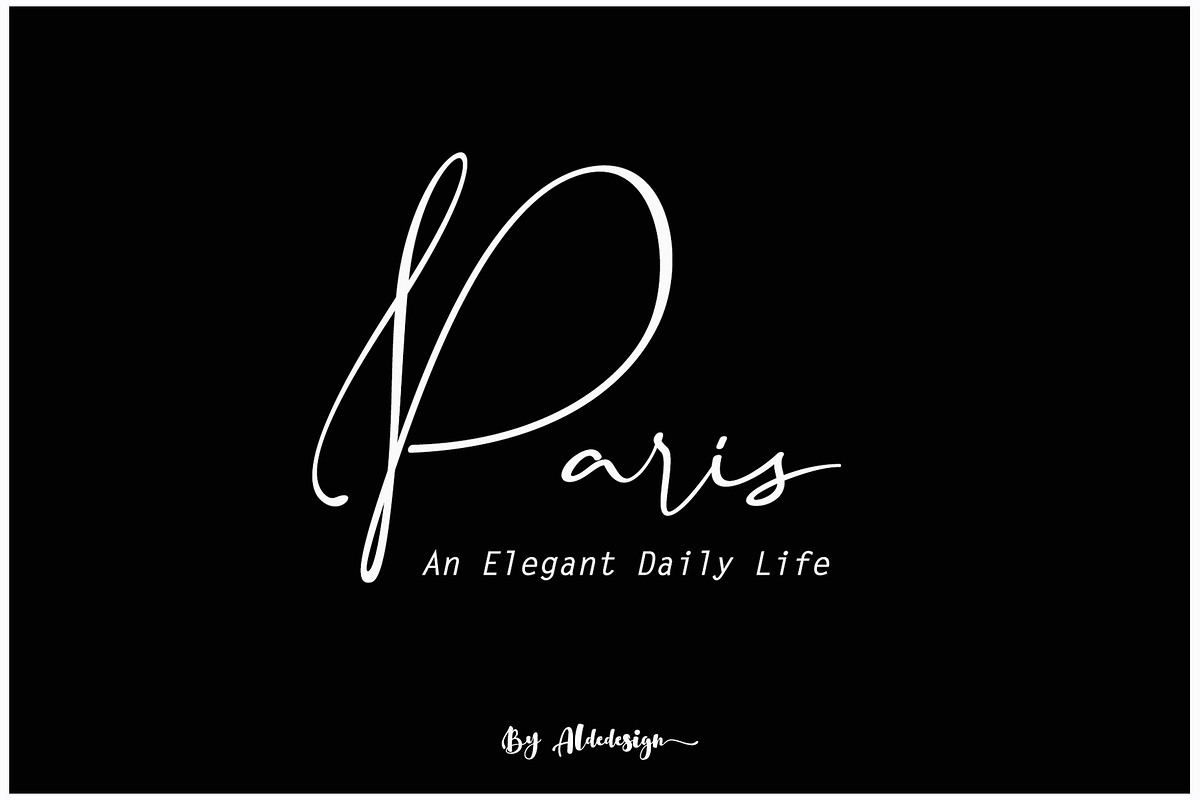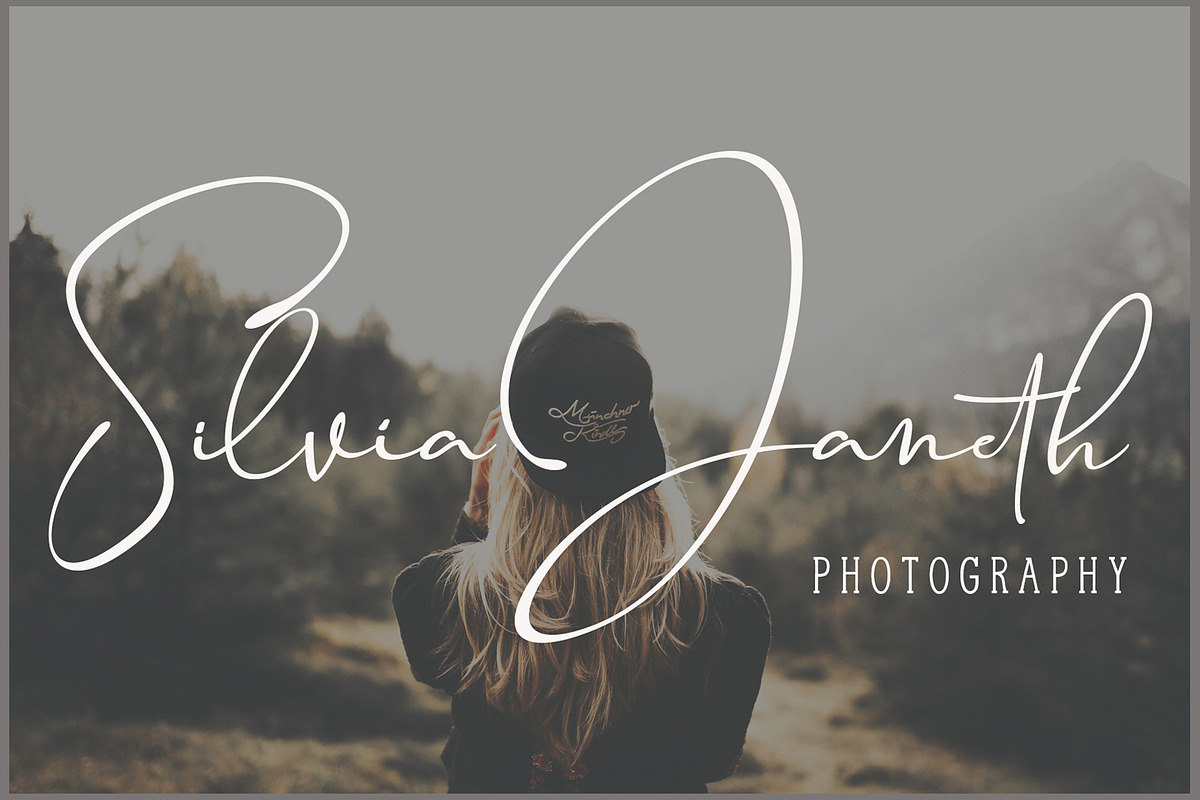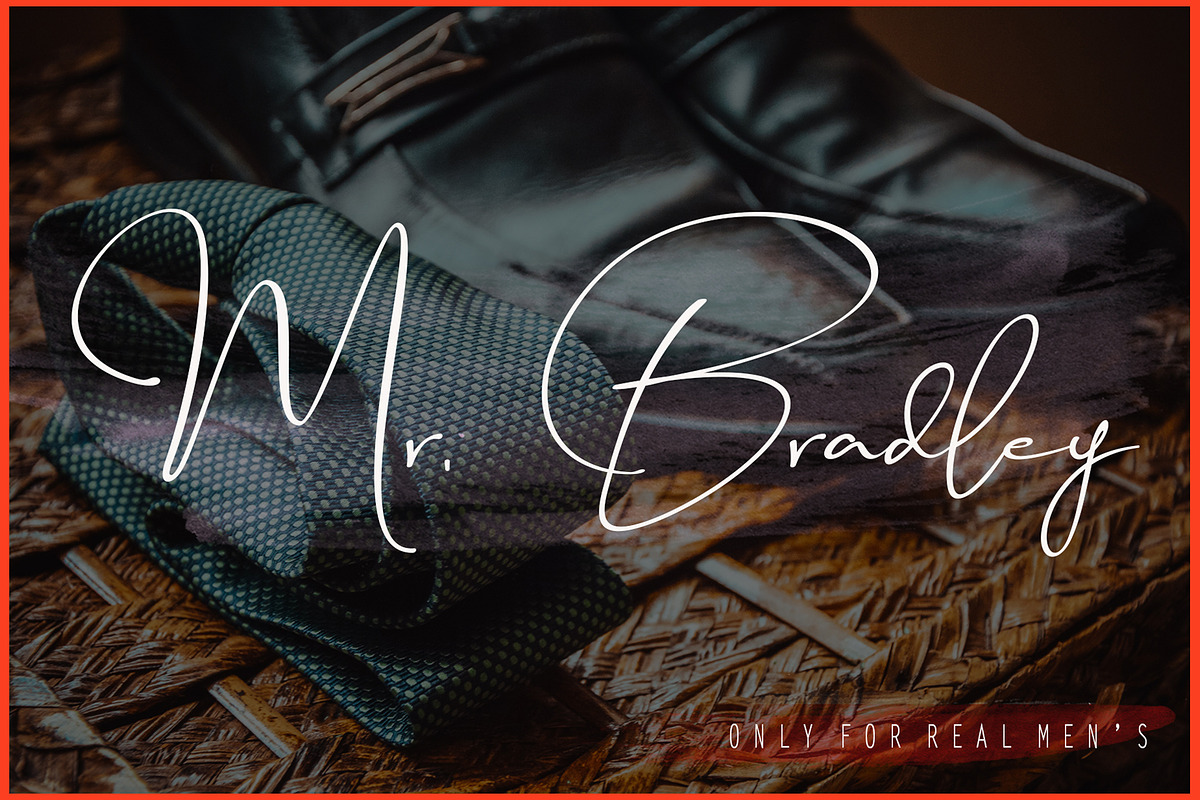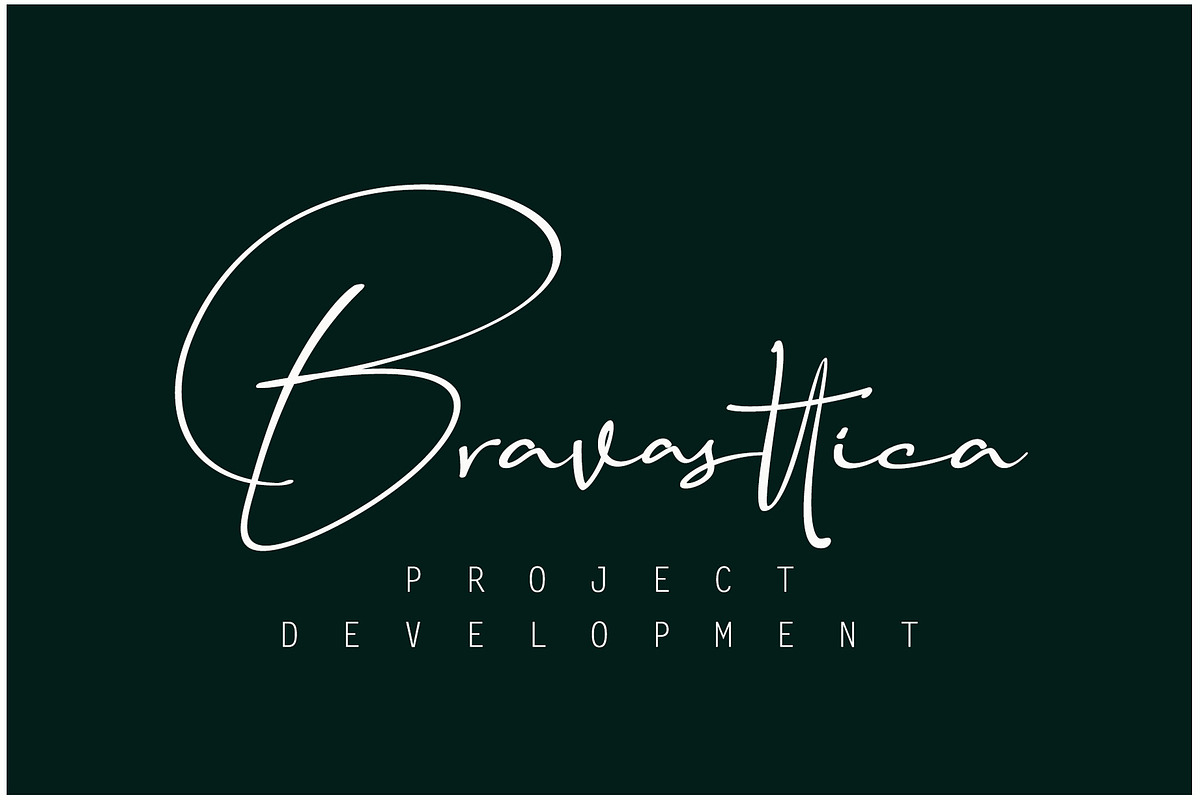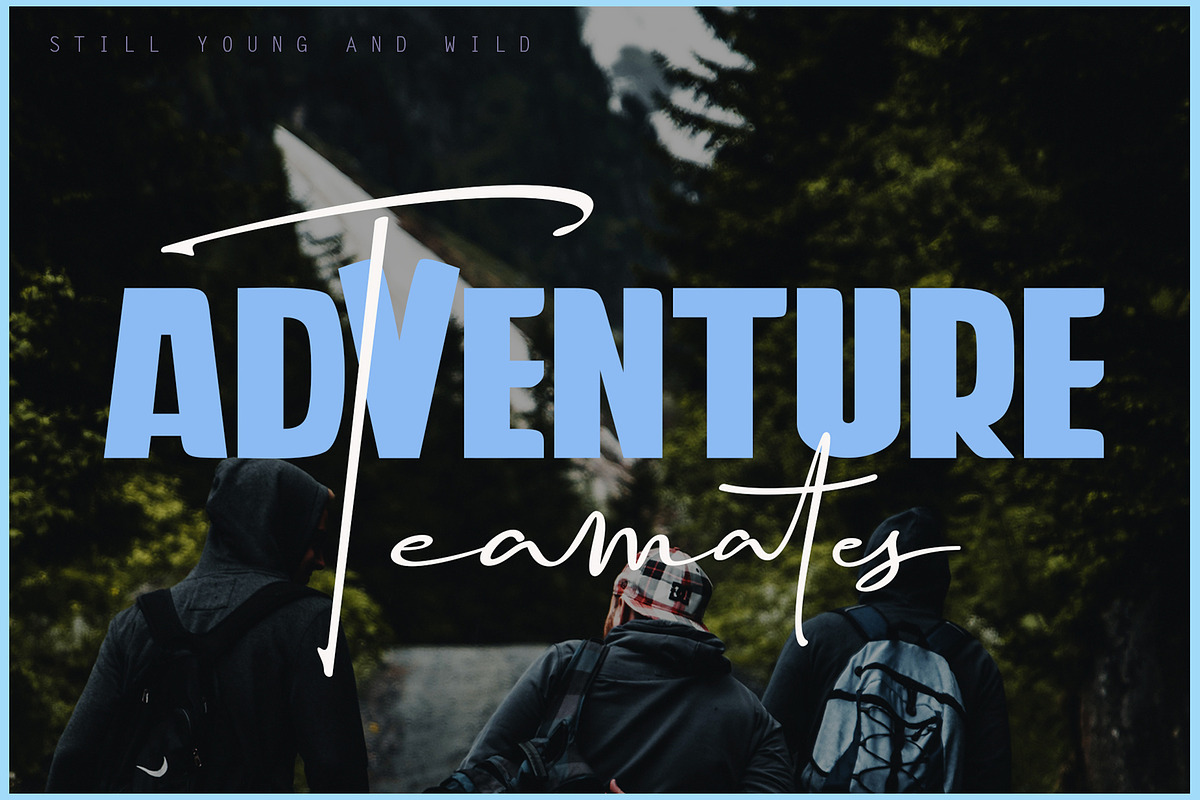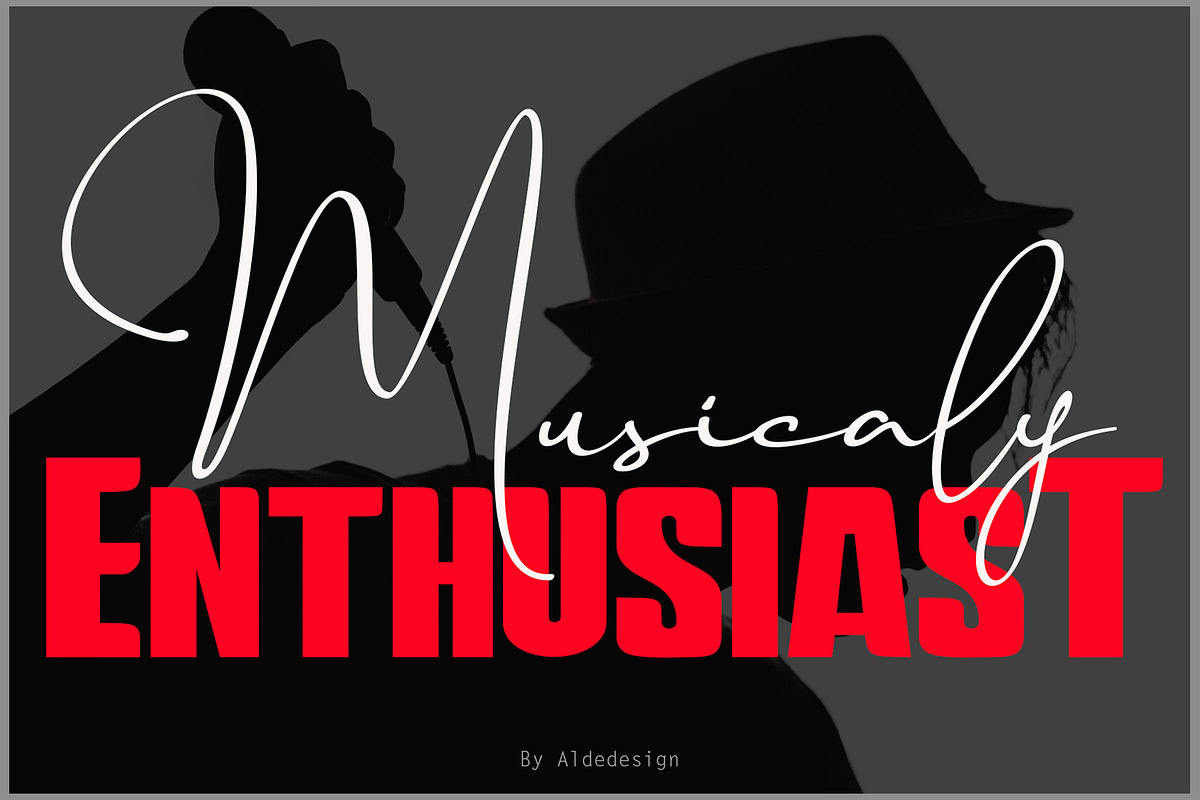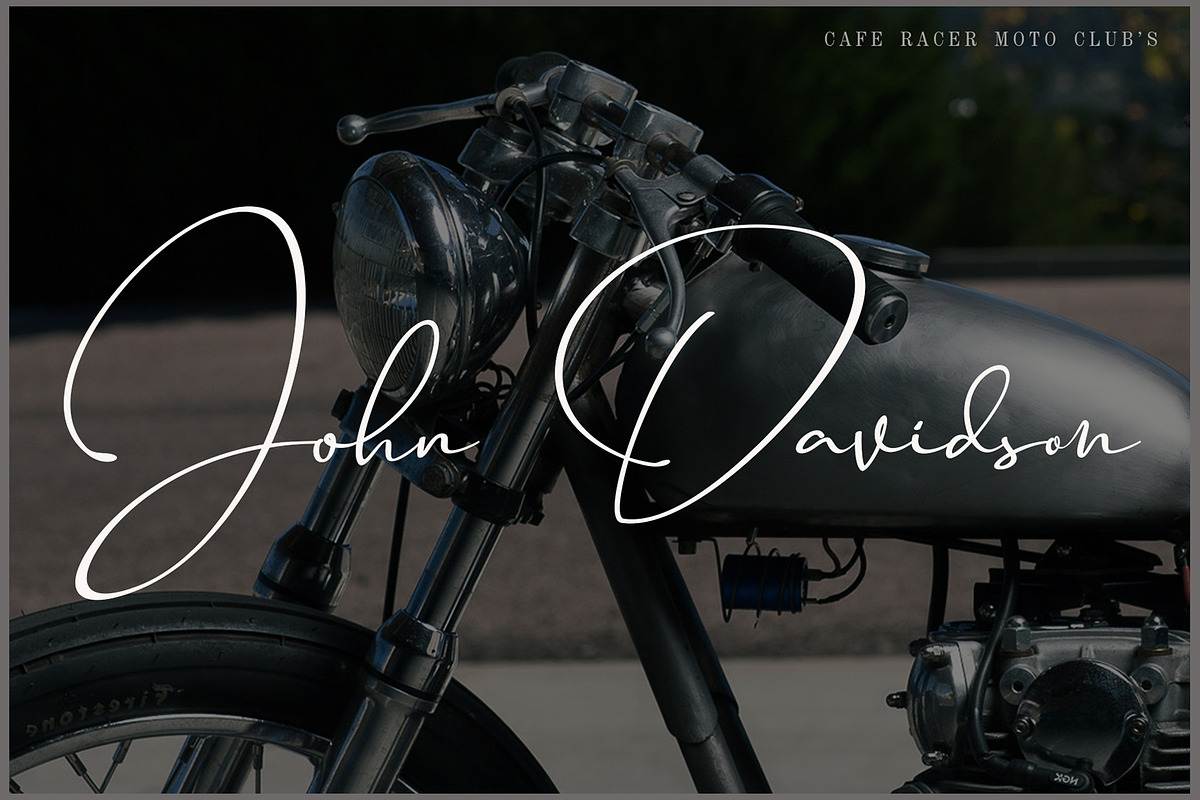
Travel Soulmates // Font Duo
Travel Soulmates - Font Duo is a font with simple and classy taste, comes with signature and Weight (bold sans) variations, opentype features such as ligatures. We keep this font looks classy, readable, elegant, stylish, catchy and absolutly easy to use.
Travel Soulmates is the great choice for watermark on photography, signature or signature logo design, album cover, business card, quotes, and many other design project.